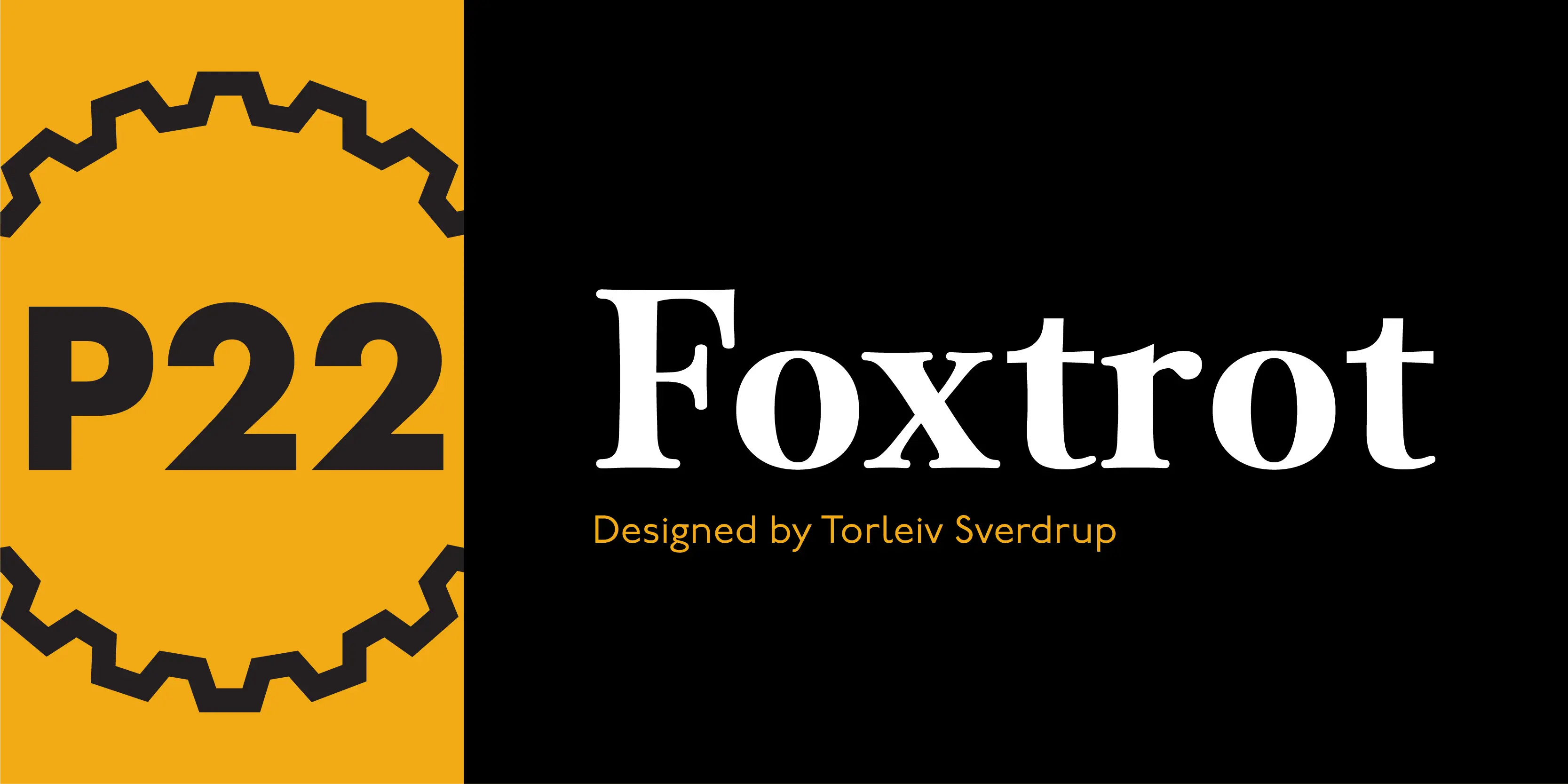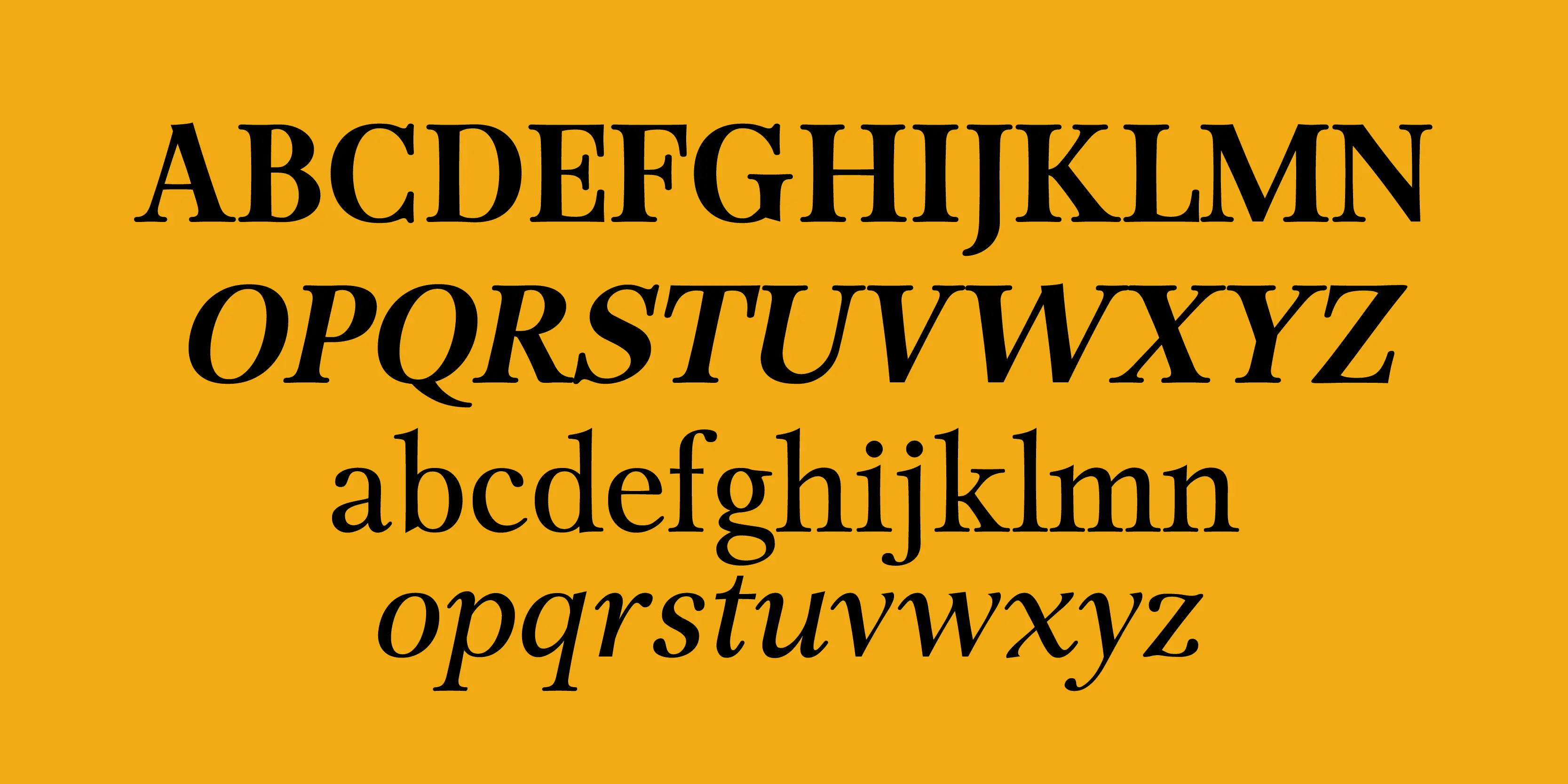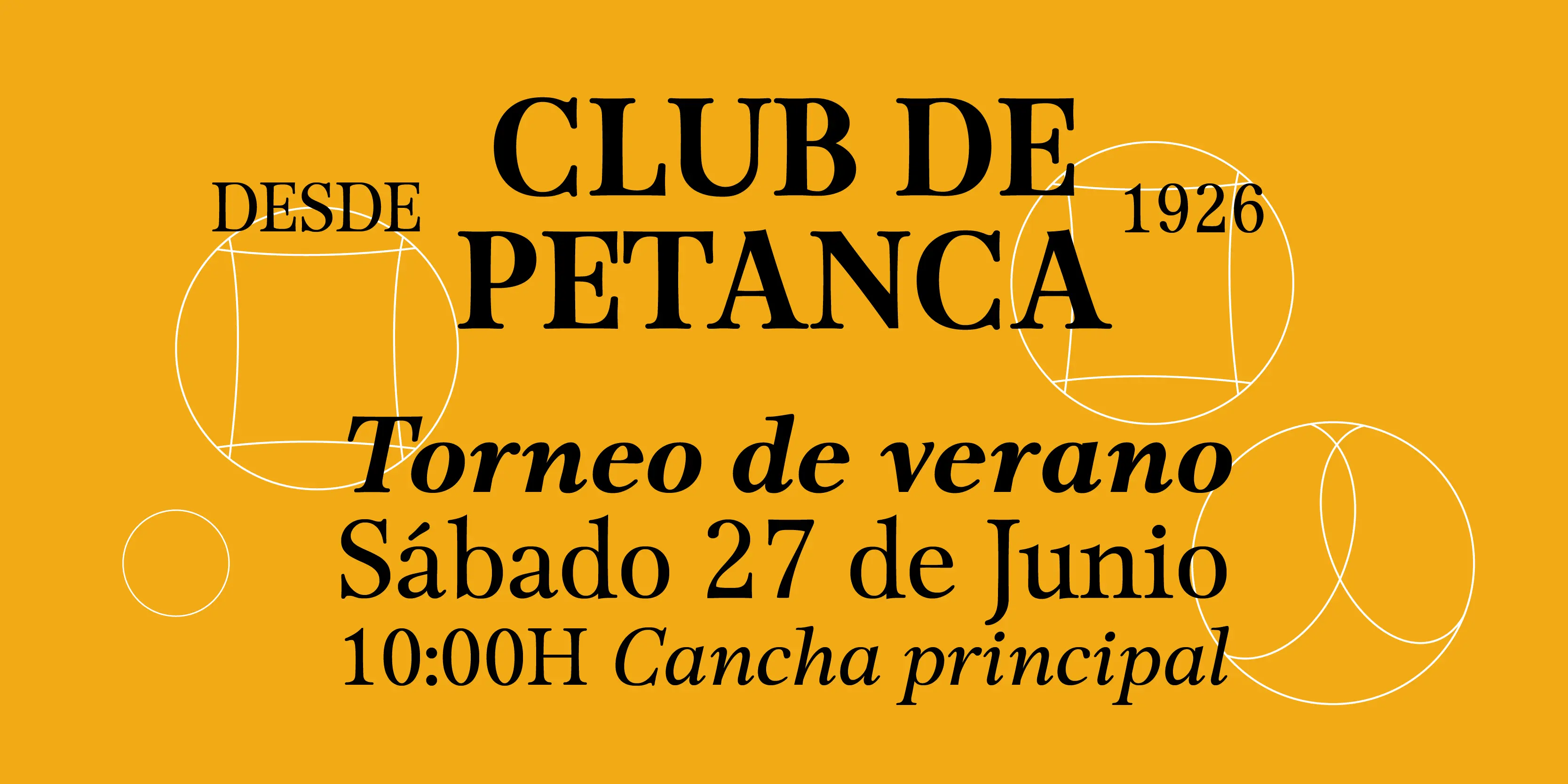
Foxtrot Font Family
Foxtrot
The design of P22 Foxtrot is inspired by the lively ballroom dance of the same name. Foxtrot is a transitional antiqua with rounded serifs that features ligatures, smallcaps, oldstyle numerals and full Central European support for those with applications that support OpenType features. The companion, Foxtrot Sans, is a sans serif version with a little more jazzy expression. Both fonts are great for text and display.
• Fractions
• Historical Ligatures
• Old Style Numerals
• Proportional Numerals
• Small Capitals
• Superscript